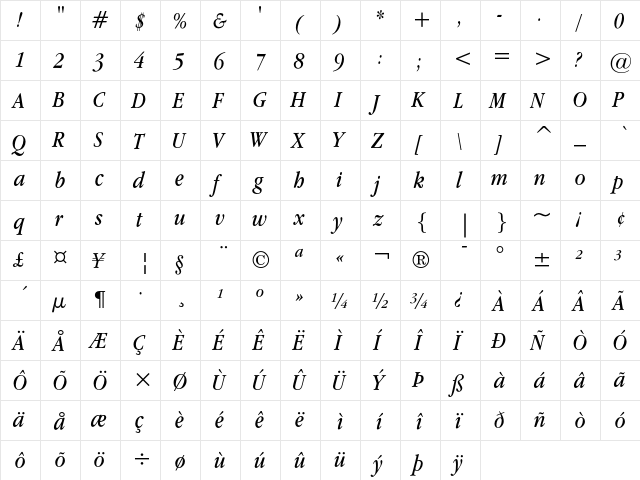
Apple Garamond Book Italic
Design Context for Apple Garamond Typeface
Apple Garamond is a composed and adaptable typeface that performs quietly and consistently across a wide range of design contexts. The slanted form adds forward momentum and visual energy.
Pro Tip: Try Apple Garamond for annotation and caption copy alongside an upright companion — the contrast in angle creates a dynamic but ordered typographic system.